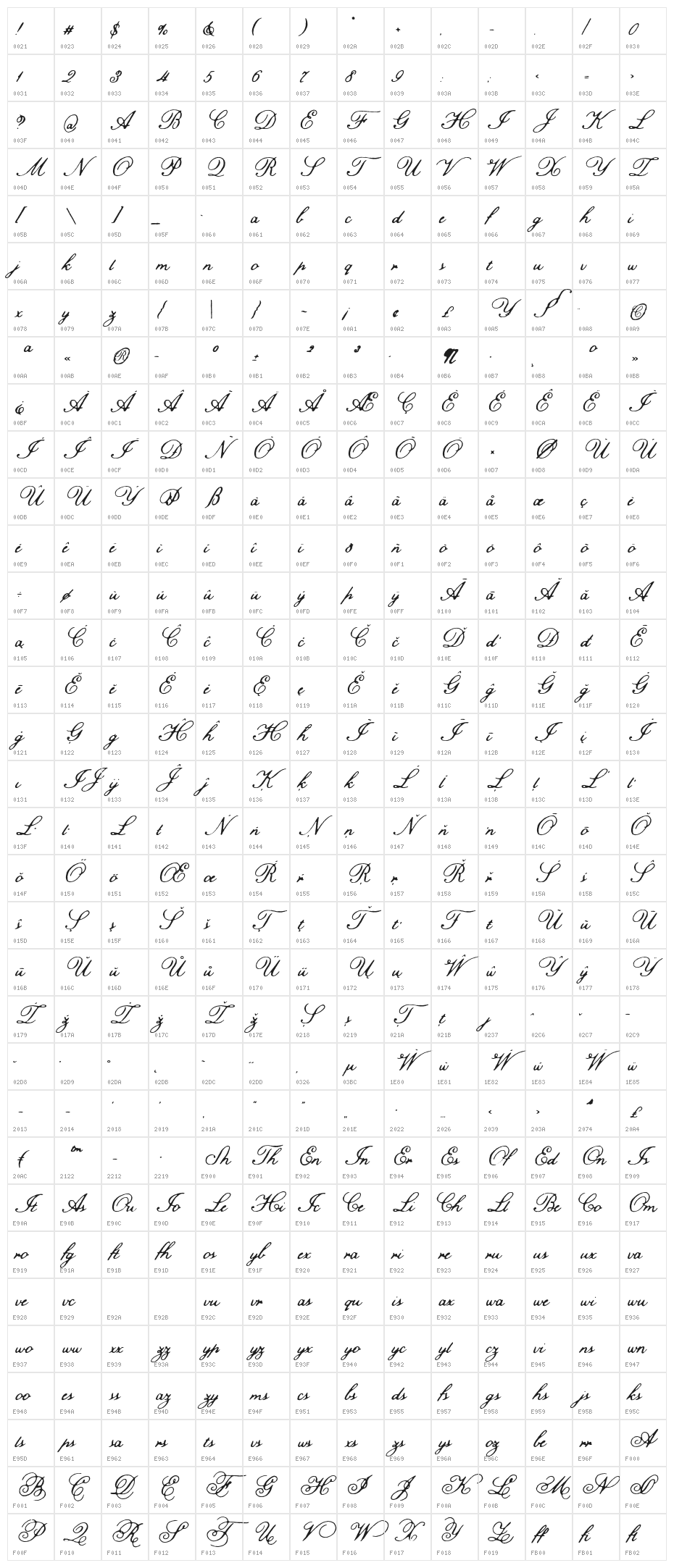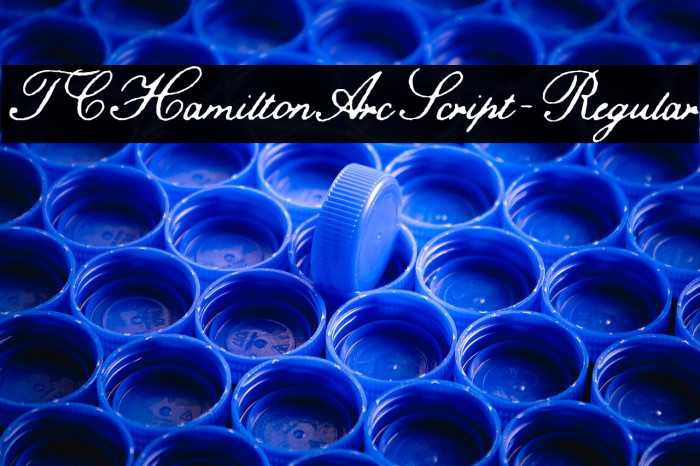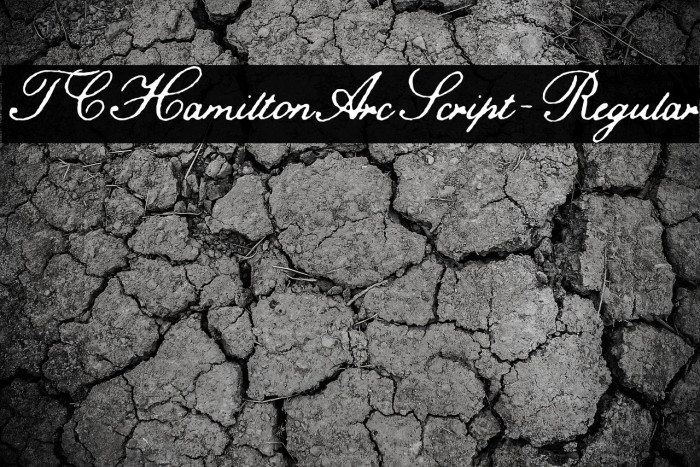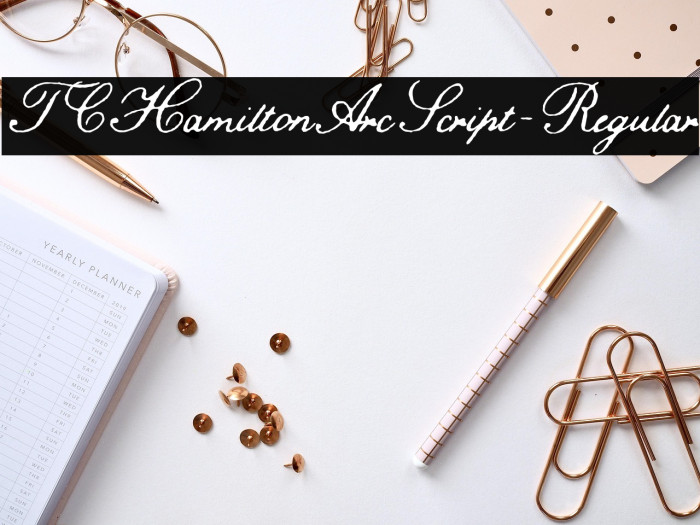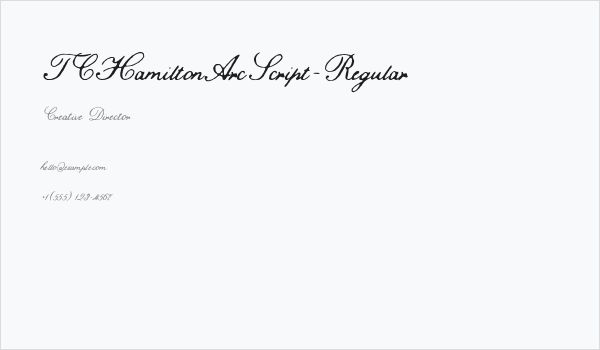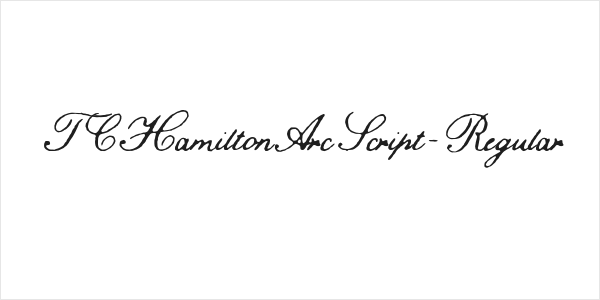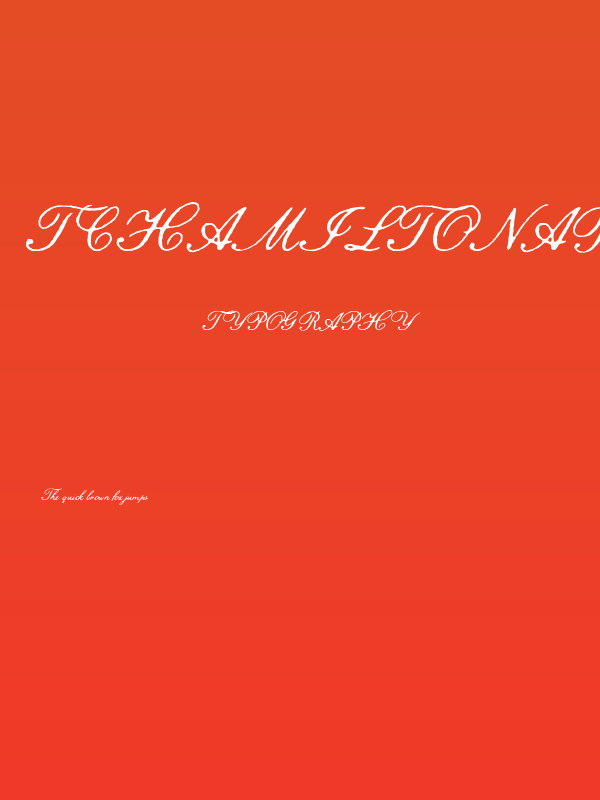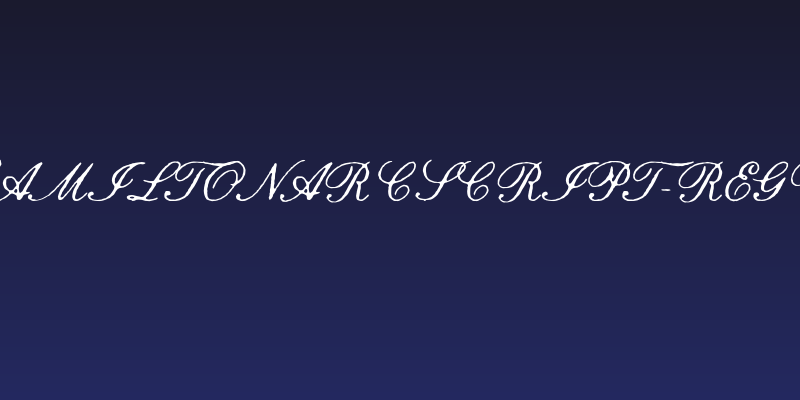
TCHamiltonArcScript-Regular Font
TCHamiltonArcScript-Regular Description
This font exudes elegance and sophistication with its fluid, cursive style. Each letter is intricately designed, featuring smooth curves and delicate loops that mimic the grace of handwritten script. The uppercase letters are particularly ornate, with flourishes that add a touch of grandeur. The lowercase letters maintain a consistent flow, enhancing readability while preserving the font's decorative nature. Numbers and special characters are crafted with the same attention to detail, ensuring a cohesive look across all text elements. This font is perfect for projects that require a personal, artistic touch.